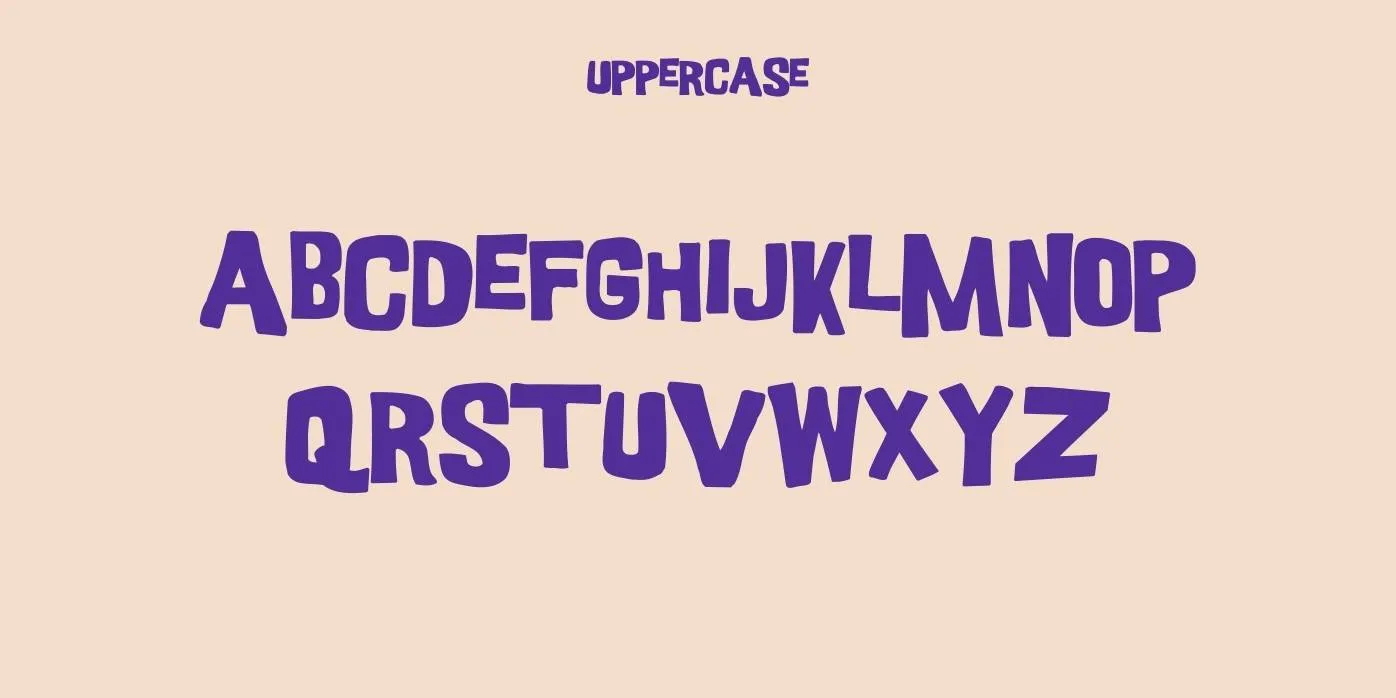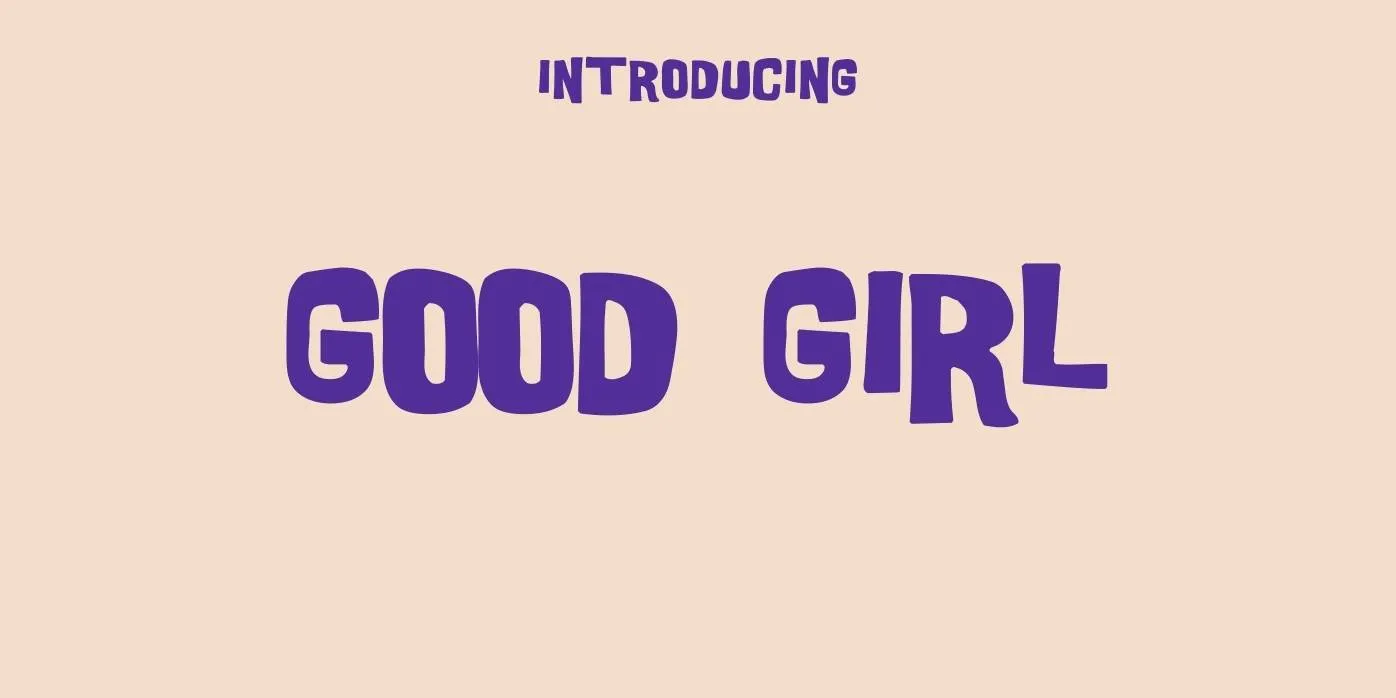
Good Girl Font
Cathy Davies designed this typeface. Good Girl Font is a cartoon-type texture. It has bold characters and this property of this font increases its readability and attraction. This texture has an online generator tool that converts simple text into a stylish one.
The stylish result has different sizes, shapes, and colors. This texture has 99 characters include capital letters, lowercase letters, special letters, numbers, punctuation, and some international characters. The hand of sean font gets a new shape after make a pair with this fpmt. Both work to get better results.